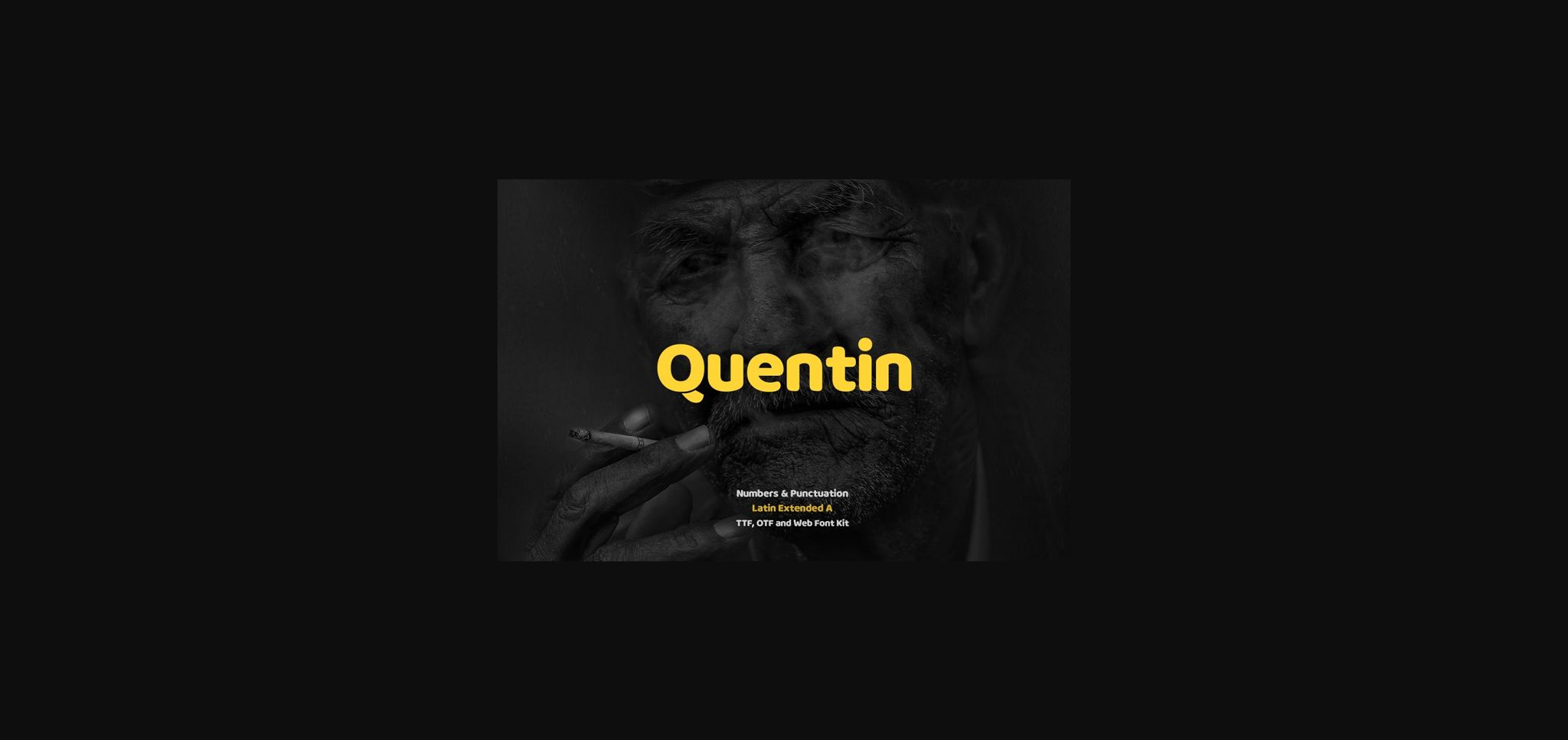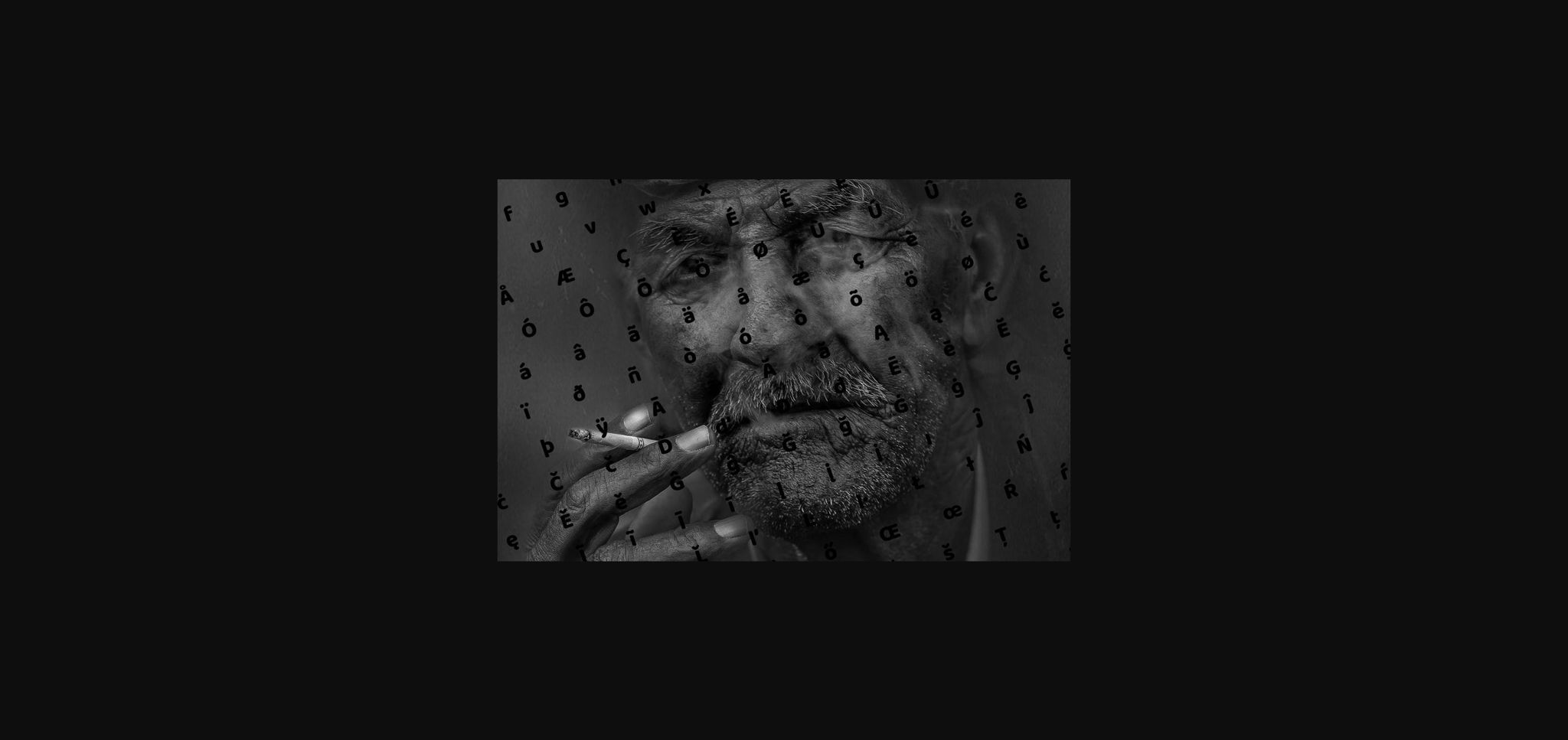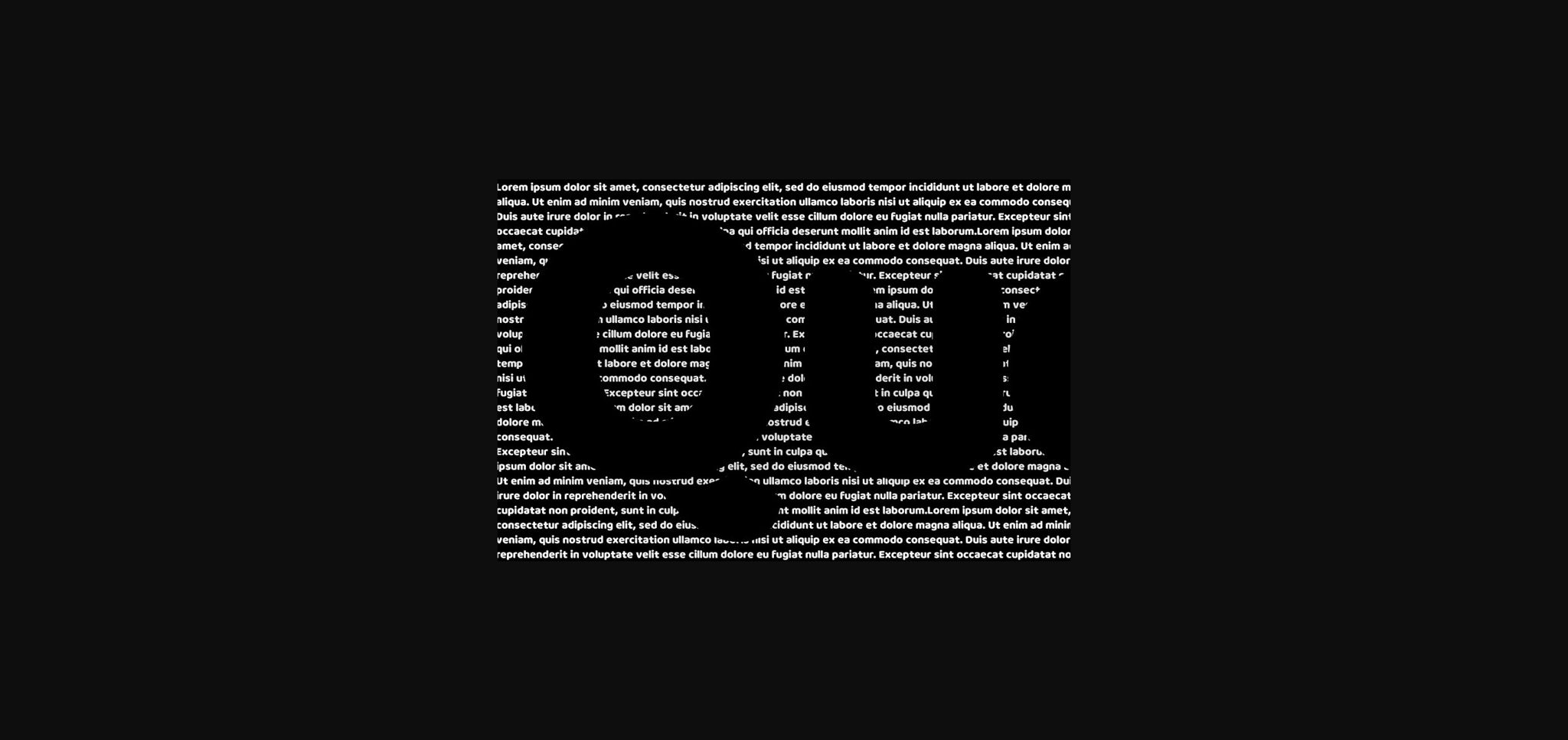
HomeSans Serif FontsQuentin Font Sans Serif Fonts Quentin Font FacebookXPinterestWhatsApp 1 of 5 ... Quentin Font Poster 2... Quentin Font Poster 3... Quentin Font Poster 4... Quentin Font Poster 5... About Quentin Font Quentin is a thick and round-lettered sans serif font. Fall in love with its incredibly versatile style and use it to create spectacular designs! DOWNLOAD NOW People also explored Pique My Interest Font Halymoon Font Legacy Font Mechanical Font Heartily Font Bozo Font Animal Kingdom Font Westway Boheme Floral Font 375 0 TagsQuentinQuentin Font Previous articleSkizofrenia FontNext articleDecember Font LEAVE A REPLY Cancel reply Comment: Please enter your comment! Name:* Please enter your name here Email:* You have entered an incorrect email address! Please enter your email address here Website: Save my name, email, and website in this browser for the next time I comment. Personal Use Free Color Personal Use Free Read more about this font Shkoder 1989 Personal Use Free Read more about this font Leadent Script Personal Use Free Read more about this font Blast Personal Use Free Read more about this font BLOG Modern Sans-Serif Fonts That Brands Love in 2025 In 2025, modern sans-serif fonts remain a top choice for brands looking to project clarity, professionalism, and... 5 Fonts That Will Dominate Design Trends in 2026 Using Fonts in Digital Marketing: Tips to Strengthen Your Brand Identity Top 10 Handwritten Fonts That Elevate Your Designs